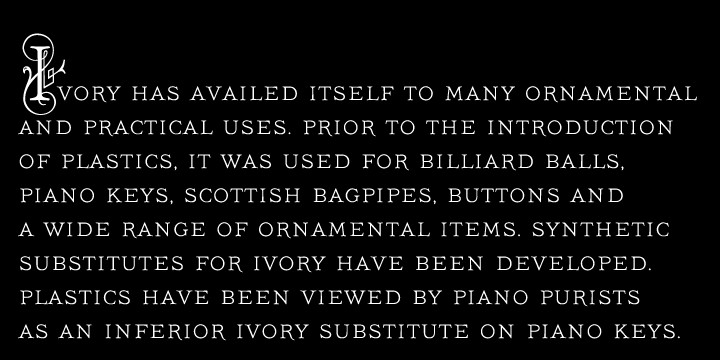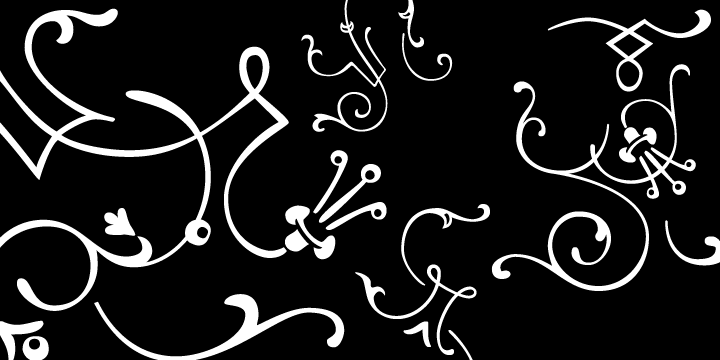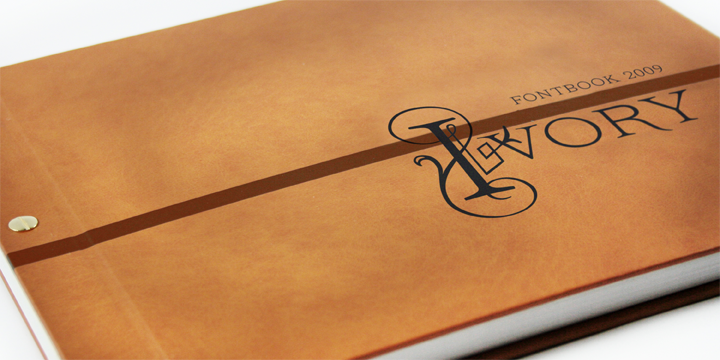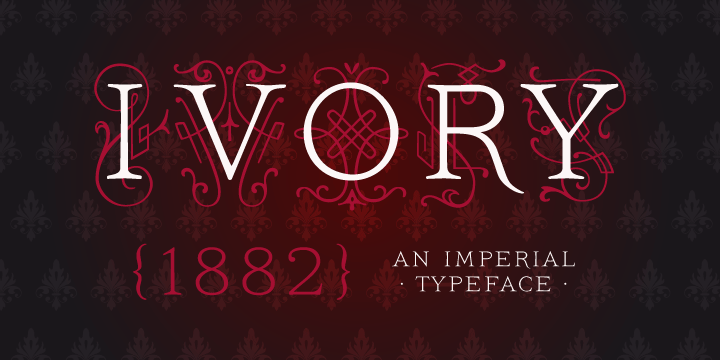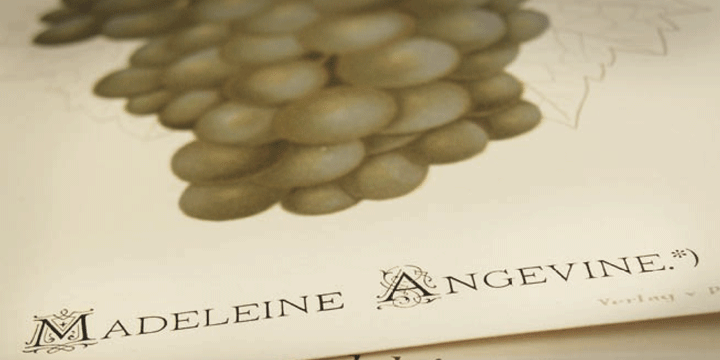
Ivory is inspired by a beautiful typeface used in an illustrated compendium about pomology from 1882.
We separated the elegant “Swashes” from the letters – use it together with “NoSwashes” to get two-colored initials.
Please note that the kerning of NoSwashes works only together with Swashes.